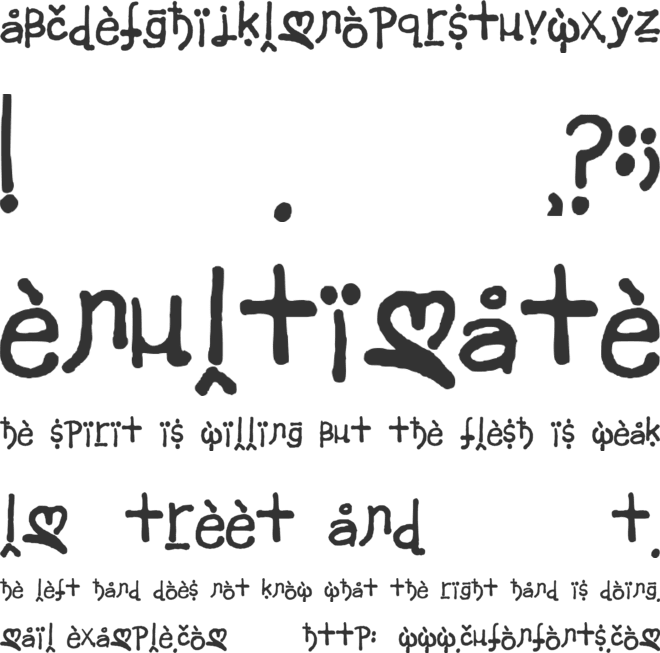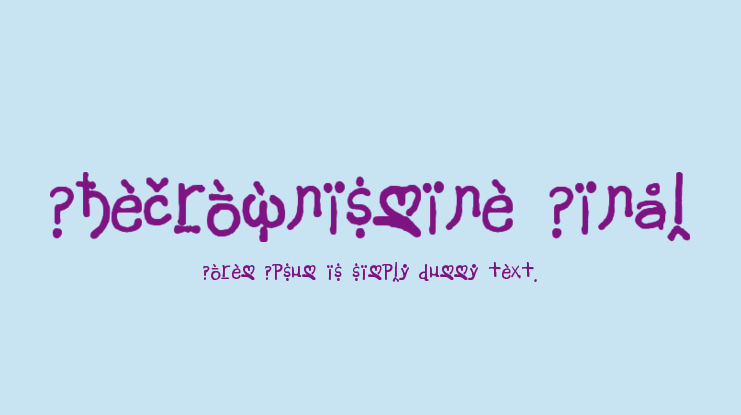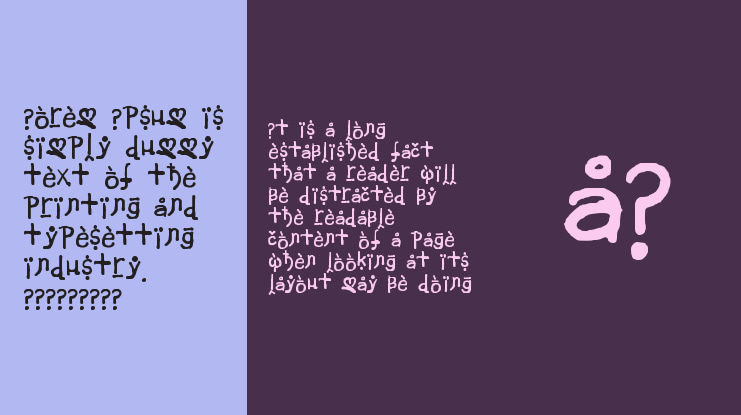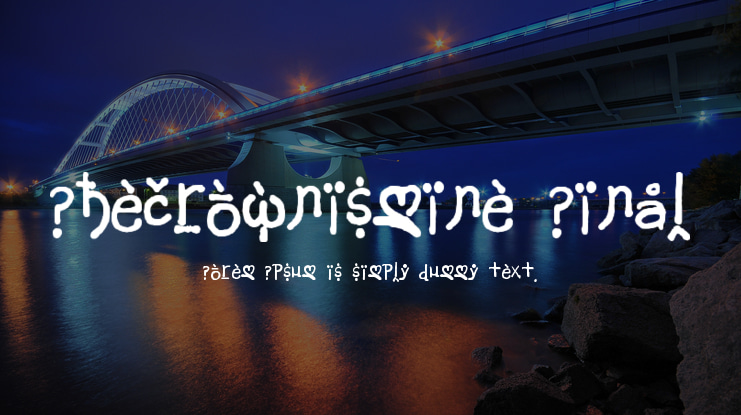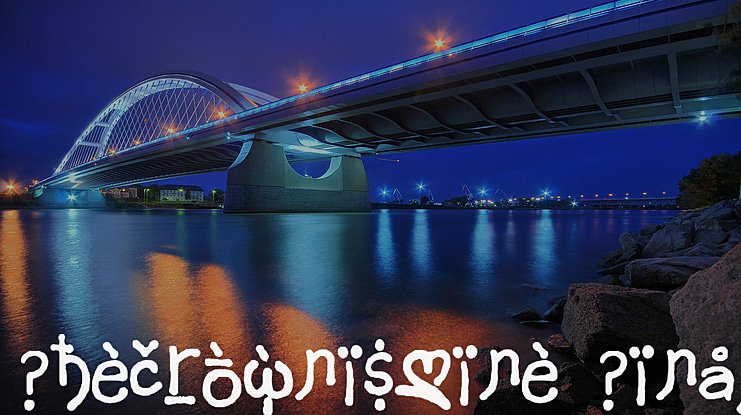
Thecrownismine Final Font
I wanted to create a font that would evoke a scene where a crown and jewels were about to be stolen from a well guarded castle, centuries ago. This was my first font. I will create a thinner version in time to come.